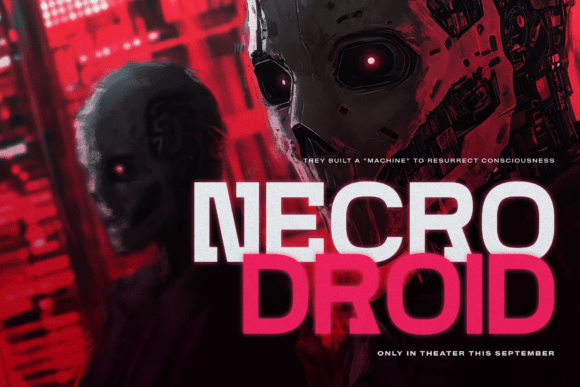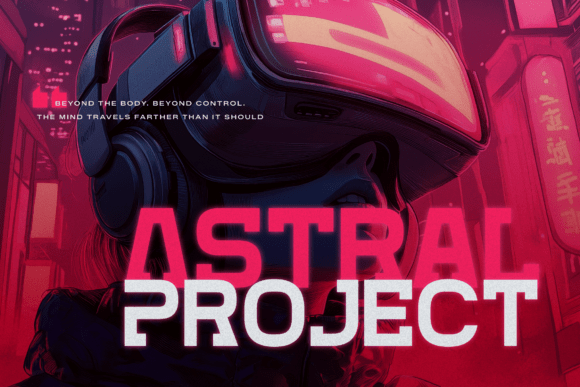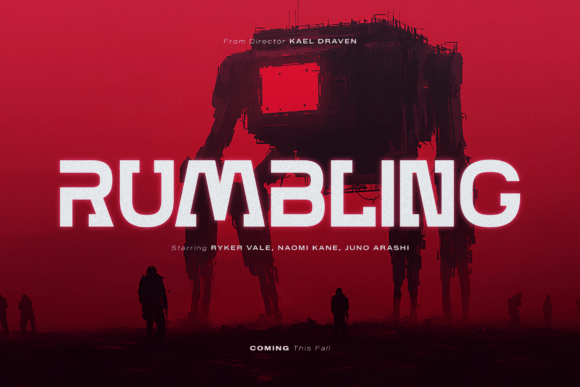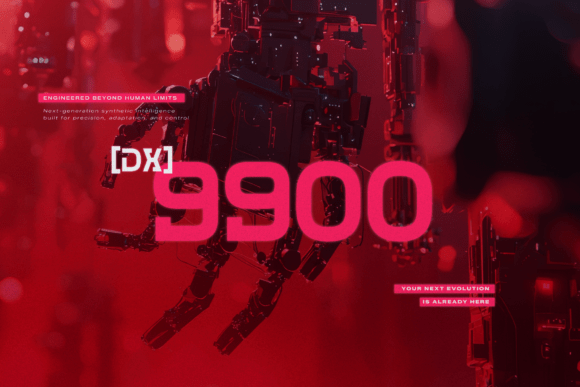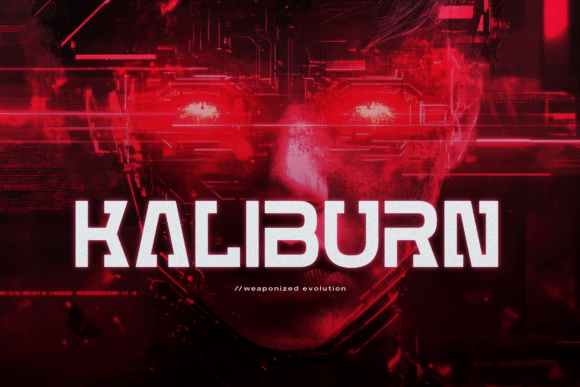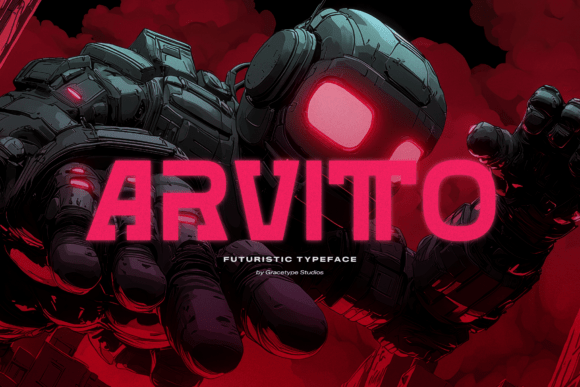
Arvitto Font: A Futuristic Typeface for the Digital Era
Welcome to the future of typography with Arvitto, a bold and futuristic typeface designed to take your visual identity to the next level. This ultra-wide font features sharp, technical notches and a low center of gravity, radiating industrial power and technological strength. In this article, we’ll explore the unique characteristics of Arvitto and how it can elevate your designs, from sci-fi cinema titles to cybersecurity logos.
The Design of Arvitto
Arvitto’s design is inspired by the futuristic and industrial aesthetic of advanced robotics, high-performance gaming, and sci-fi cinema. The font features massive, ultra-wide letterforms with sharp, technical notches that give it a unique and aggressive look. The low center of gravity adds to the font’s industrial feel, making it perfect for designs that require a sense of power and technological strength.
Key Features of Arvitto
- Ultra-wide letterforms: Arvitto’s letterforms are designed to be wide and bold, making it perfect for headlines and titles that need to grab attention.
- Sharp, technical notches: The sharp notches in Arvitto’s design give it a futuristic and industrial look, perfect for sci-fi and technology-related designs.
- Low center of gravity: The low center of gravity in Arvitto’s design adds to its industrial feel, making it perfect for designs that require a sense of power and technological strength.
- Heavy visual weight: Arvitto’s heavy visual weight makes it perfect for designs that need to stand out, from cinema titles to cybersecurity logos.
Use Cases for Arvitto
Arvitto is a versatile font that can be used in a variety of designs, including:
- Sci-fi cinema titles: Arvitto’s futuristic design makes it perfect for sci-fi cinema titles that need to grab attention and convey a sense of otherworldliness.
- Advanced robotics branding: The font’s industrial aesthetic makes it perfect for advanced robotics branding that requires a sense of power and technological strength.
- High-performance gaming headers: Arvitto’s bold and aggressive design makes it perfect for high-performance gaming headers that need to stand out.
- Bold cybersecurity logos: The font’s heavy visual weight and industrial aesthetic make it perfect for bold cybersecurity logos that need to convey a sense of strength and protection.
Benefits of Using Arvitto
Using Arvitto in your designs can have a number of benefits, including:
- Instant recognition: Arvitto’s bold and aggressive design makes it perfect for designs that need to grab attention and stand out.
- Technological strength: The font’s industrial aesthetic and heavy visual weight convey a sense of technological strength and power.
- Legendary presence: Arvitto’s unique design ensures that your message carries a legendary and unforgettable presence in any galaxy.
Arvitto is a futuristic typeface that is designed to take your visual identity to the next level. With its ultra-wide letterforms, sharp technical notches, and low center of gravity, Arvitto radiates industrial power and technological strength. Whether you’re designing sci-fi cinema titles, advanced robotics branding, high-performance gaming headers, or bold cybersecurity logos, Arvitto is the perfect font to convey a sense of brilliant structural precision and unyielding technological strength. So why wait? Step into the high-octane digital era with Arvitto and make your designs unforgettable.